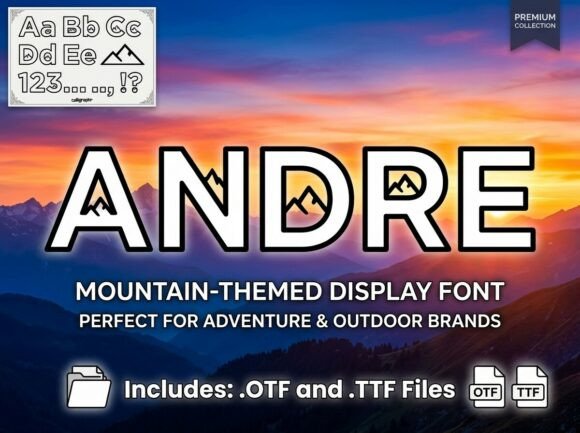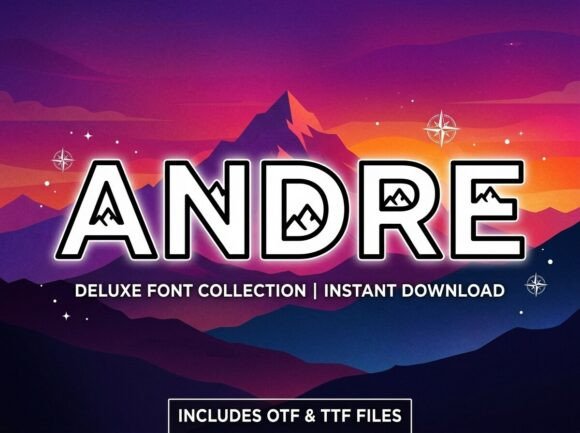
Discover the Majestic Andre Font: Elevate Your Design to New Heights
Are you tired of using the same old fonts for your design projects? Look no further than Andre, a stunning display typeface that embodies the spirit of adventure and modern minimalism. With its unique blend of rugged, blocky letterforms and rhythmic, hand-drawn silhouettes, Andre is the perfect choice for designers and crafters looking to make a statement.
The Inspiration Behind Andre
Andre’s design is inspired by the great outdoors, specifically the majestic mountain peaks that touch the sky. The font’s creator aimed to capture the essence of high-altitude adventure and translate it into a typographic experience that’s both bold and beautiful. The result is a font that’s not only visually striking but also tells a story of exploration and discovery.
Key Features of Andre Font
So, what makes Andre stand out from other fonts? Here are some of its key features:
- Massive, blocky sans-serif letterforms: Andre’s letterforms are sturdy and robust, making them perfect for headlines, titles, and short phrases.
- Rhythmic, hand-drawn “mountain peak” silhouettes: The negative space within each character features intricate, hand-drawn silhouettes that resemble mountain peaks, adding a touch of whimsy and adventure to the font.
- Heavy structural weight: Andre’s bold weight makes it perfect for high-impact designs that demand attention.
- Adventurous personality: Andre exudes a sense of confidence and fearlessness, making it ideal for brands that want to convey a sense of excitement and exploration.
Use Cases for Andre Font
Andre’s versatility makes it suitable for a wide range of design projects, including:
- Independent mountaineering gear identities: Create a bold and adventurous brand identity that resonates with outdoor enthusiasts.
- Boutique outdoor apparel labels: Elevate your fashion brand with a font that’s both stylish and rugged.
- National park guidebooks: Guide readers through the great outdoors with a font that’s both informative and visually stunning.
- High-impact social media headers: Make a statement on social media with Andre’s bold and attention-grabbing design.
Why Choose Andre Font?
With so many fonts available, why choose Andre? Here are just a few reasons:
- Unique design: Andre’s distinctive blend of rugged and refined elements makes it a one-of-a-kind font that will set your design apart.
- High-quality typography: Andre is crafted with precision and attention to detail, ensuring that your design looks professional and polished.
- Flexibility: Andre can be used for a wide range of design projects, from branding and advertising to publishing and digital media.
In conclusion, Andre is a majestic display typeface that’s sure to elevate your design to new heights. With its bold, adventurous personality and unique blend of rugged and refined elements, Andre is the perfect choice for designers and crafters looking to make a statement. Whether you’re creating a brand identity, designing a guidebook, or crafting a social media header, Andre is the premier choice for any design project that demands attention and tells a story of exploration and discovery.